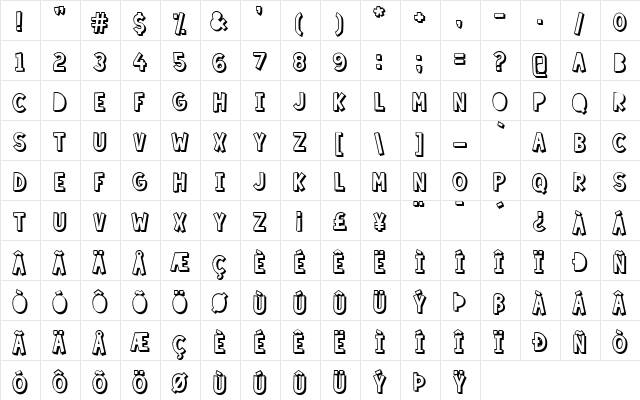
Lazy Sunday Shadow
| Foundry | Fr餩ric Rich |
| Designer | Fr餩ric Rich |
Design Context for Lazy Sunday Typeface
Lazy Sunday is built around its visual character rather than neutral utility — its distinctive forms are designed to make an impression at display sizes.
Font Pairing: Pair with a clean neutral sans-serif for body copy to let Lazy Sunday's character lead without overwhelming the composition.
Pro Tip: Treat Lazy Sunday as the centrepiece of your typographic hierarchy. One strong heading set in a decorative face can carry an entire layout.